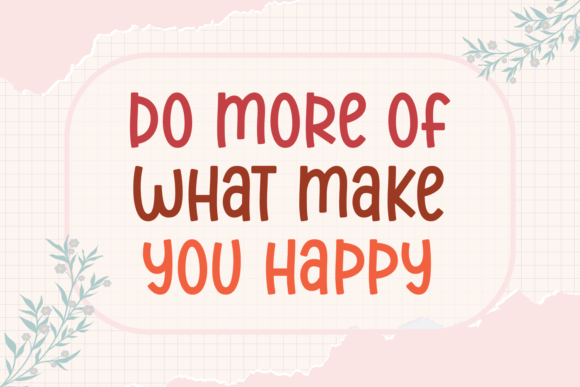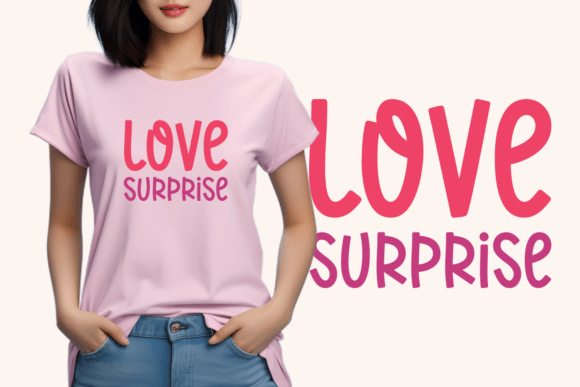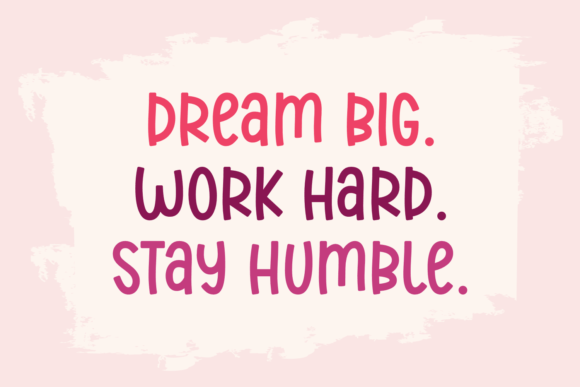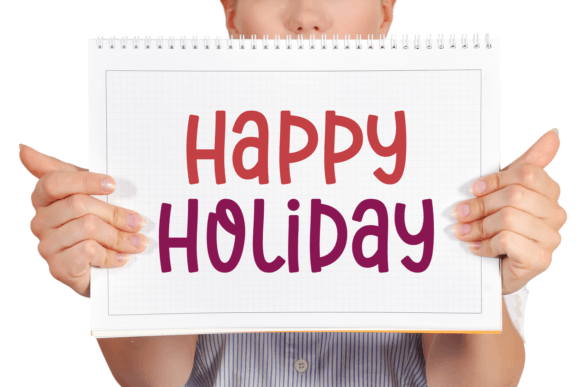
Create Beauty Font: Elevate Your Designs with a Playful and Friendly Touch
In the world of design, fonts play a crucial role in conveying the tone and personality of a brand or project. If you’re looking for a font that can add a playful and friendly touch to your designs, look no further than Create Beauty Font. This delightful display font is perfect for a wide range of applications, from logos and product packaging to invitations, branding, headlines, signage, labels, book covers, posters, quotes, and more.
What Makes Create Beauty Font Special?
Create Beauty Font is a unique and versatile typeface that can instantly elevate your designs. Its playful and friendly characteristics make it perfect for designers and crafters who want to add a personal touch to their work. With Create Beauty Font, you can:
- Create stunning logos that capture the essence of your brand
- Design eye-catching product packaging that stands out on store shelves
- Make beautiful invitations that set the tone for special events
- Develop a strong brand identity that resonates with your audience
- Add a touch of personality to your headlines, signage, and labels
- Design captivating book covers that grab readers’ attention
- Create inspiring posters and quotes that motivate and uplift
Key Features of Create Beauty Font
Create Beauty Font comes with a range of features that make it a valuable addition to your font collection. Some of its key features include:
- Playful and friendly design
- Versatile and adaptable to various design applications
Tips for Using Create Beauty Font Effectively
To get the most out of Create Beauty Font, here are some tips to keep in mind:
- Use it for display purposes: Create Beauty Font is designed to make a statement, so use it for headlines, titles, and other display text.
- Experiment with colors and textures: Add depth and interest to your designs by experimenting with different colors and textures.
- Pair it with complementary fonts: Create Beauty Font pairs well with clean and simple fonts, so try pairing it with a sans-serif font for a striking contrast.
- Keep it simple: Don’t overcomplicate your design. Create Beauty Font is beautiful on its own, so let it shine!
Who Can Benefit from Create Beauty Font?
Create Beauty Font is perfect for a wide range of designers and crafters, including:
- Graphic designers looking for a unique and versatile font
- Branding experts seeking to create a strong brand identity
- Packaging designers who want to create eye-catching product packaging
- Stationery designers looking for a beautiful font for invitations and greeting cards
- Book designers seeking to create captivating book covers
- Crafters who want to add a personal touch to their DIY projects